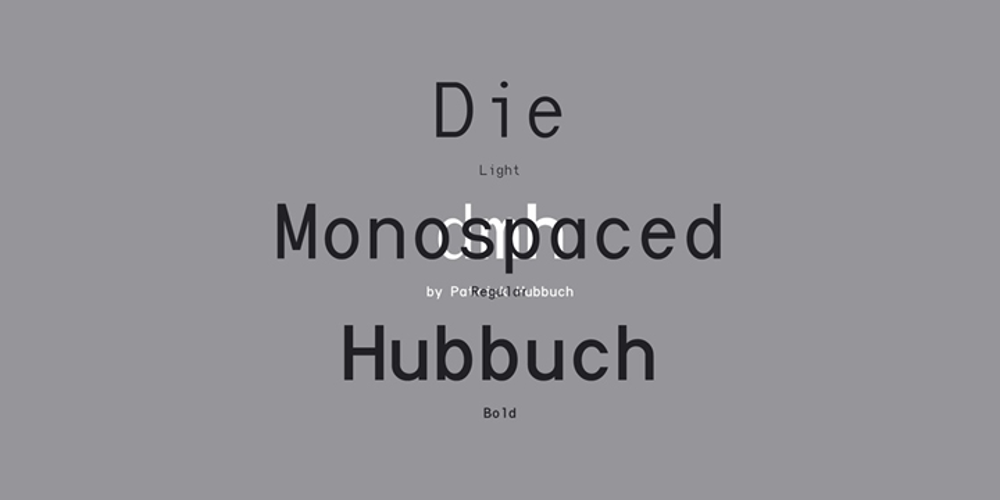
Die Monospaced Hubbuch Font Family was designed by Patrick Hubbuch and published by Volcano Type. Die Monospaced Hubbuch contains 6 styles and family package options. »Die Monospaced Hubbuch« is a modern, non-proportional grotesk. »D M H« comes in three weights, each accompanied by italics.